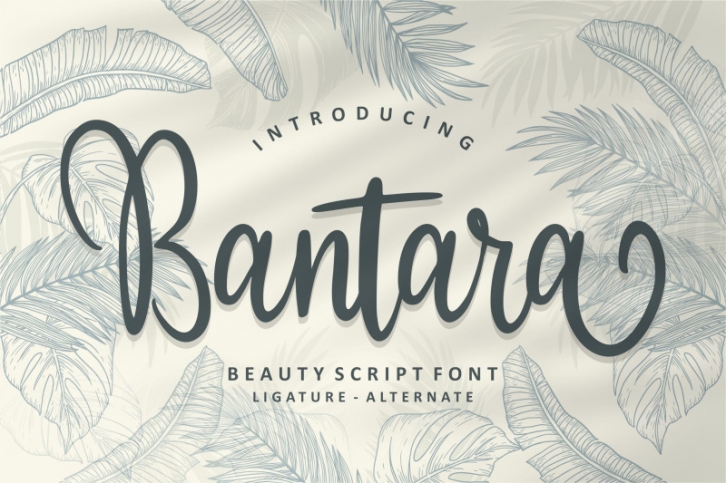
The Bantara font is a simple and classy font, coming with open type features such as style alternatives, initial and final shapes, and ligatures. We keep this font looking elegant, classy, ​​easy to read, stylish, attractive and easy to use.
Bantara Font is a great choice for watermarks on photography, signature or signature logo designs, quotes, album covers, business cards and many other design projects. From business cards to photo watermarks, Bantara is here to take your work to the highest level